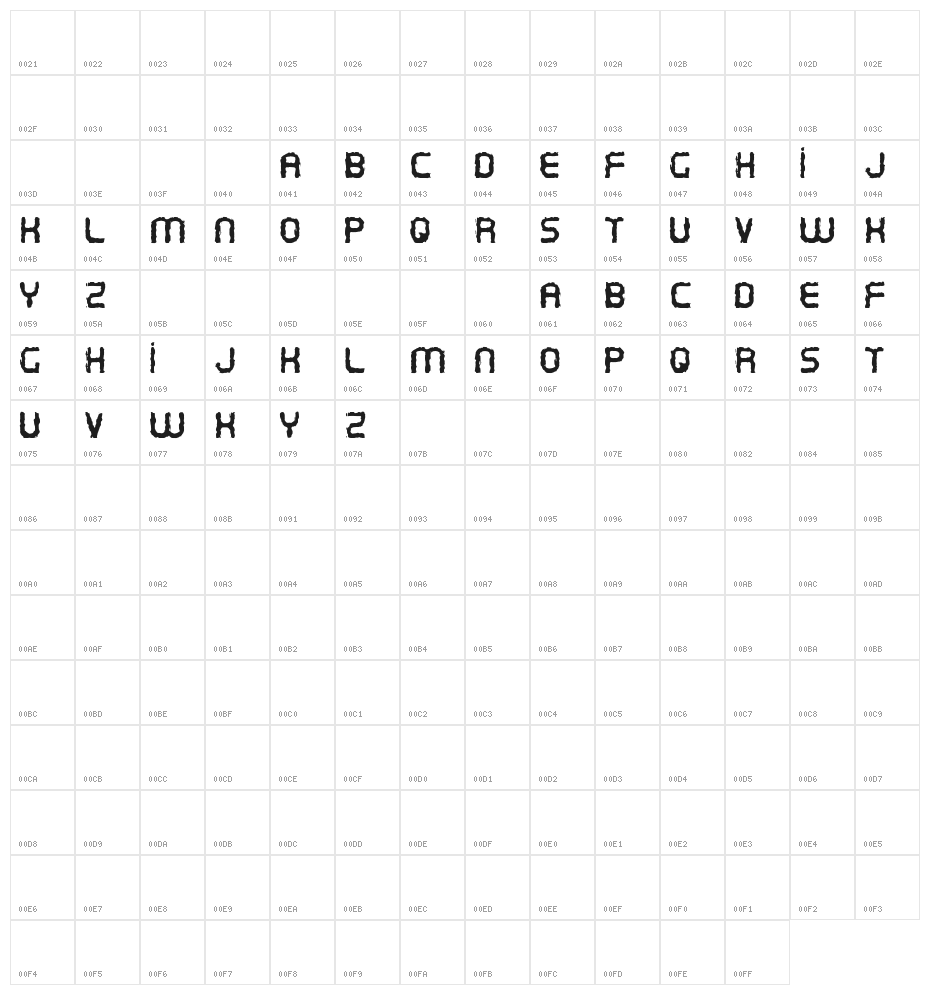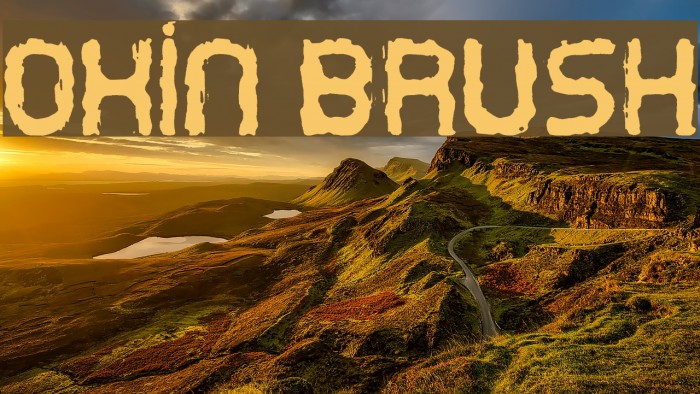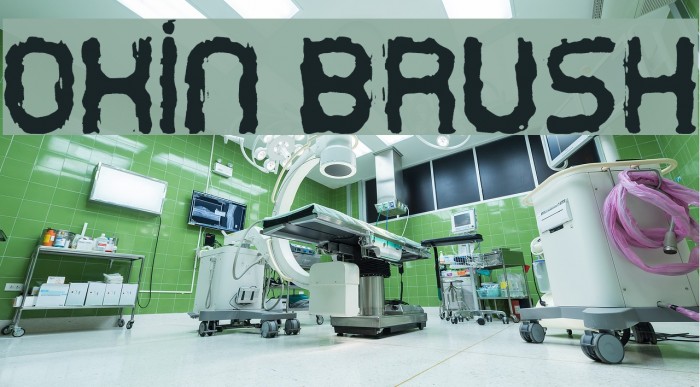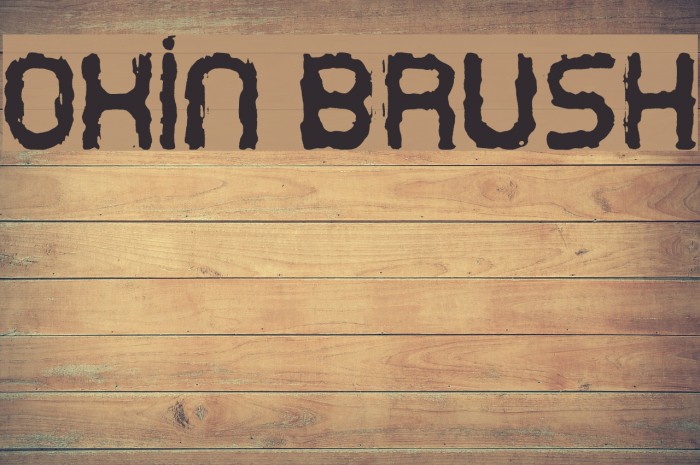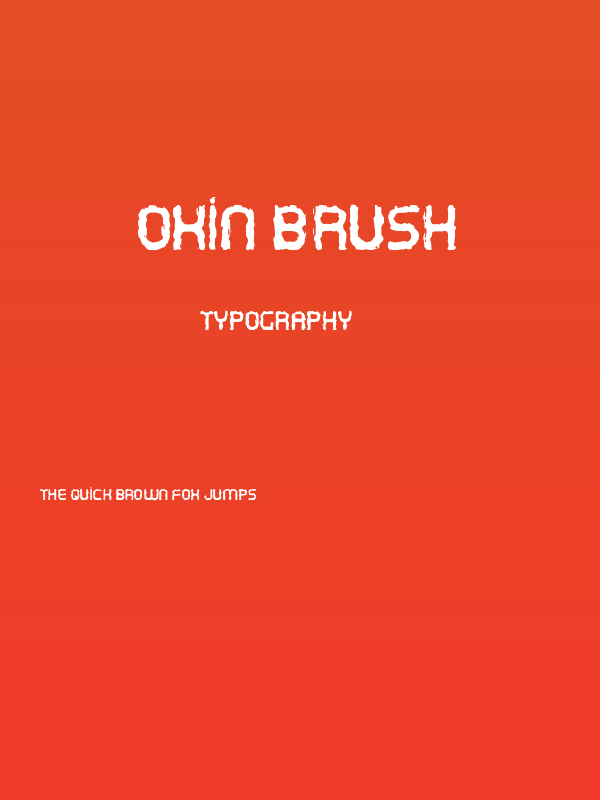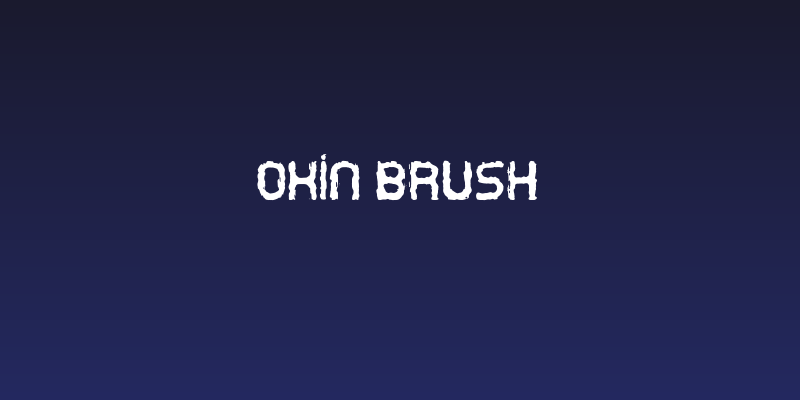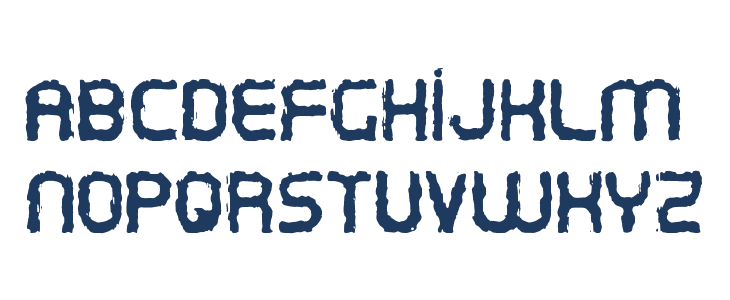
Oxin Brush Font
Oxin Brush Description
This font features a bold and rugged brush style, characterized by its textured and uneven strokes that mimic the appearance of hand-painted letters. The uppercase letters are consistent in height, with a slightly condensed form that gives a compact and impactful look. The edges are rough, adding a sense of dynamism and energy. This font is ideal for projects that require a raw, artistic touch, such as posters, album covers, or branding for creative industries. Its unique style captures attention and conveys a sense of authenticity and creativity.
| Overall Style | Artistic, Dynamic |
| Proposed Projects | Ideal for posters, album covers, creative branding, and artistic projects. |